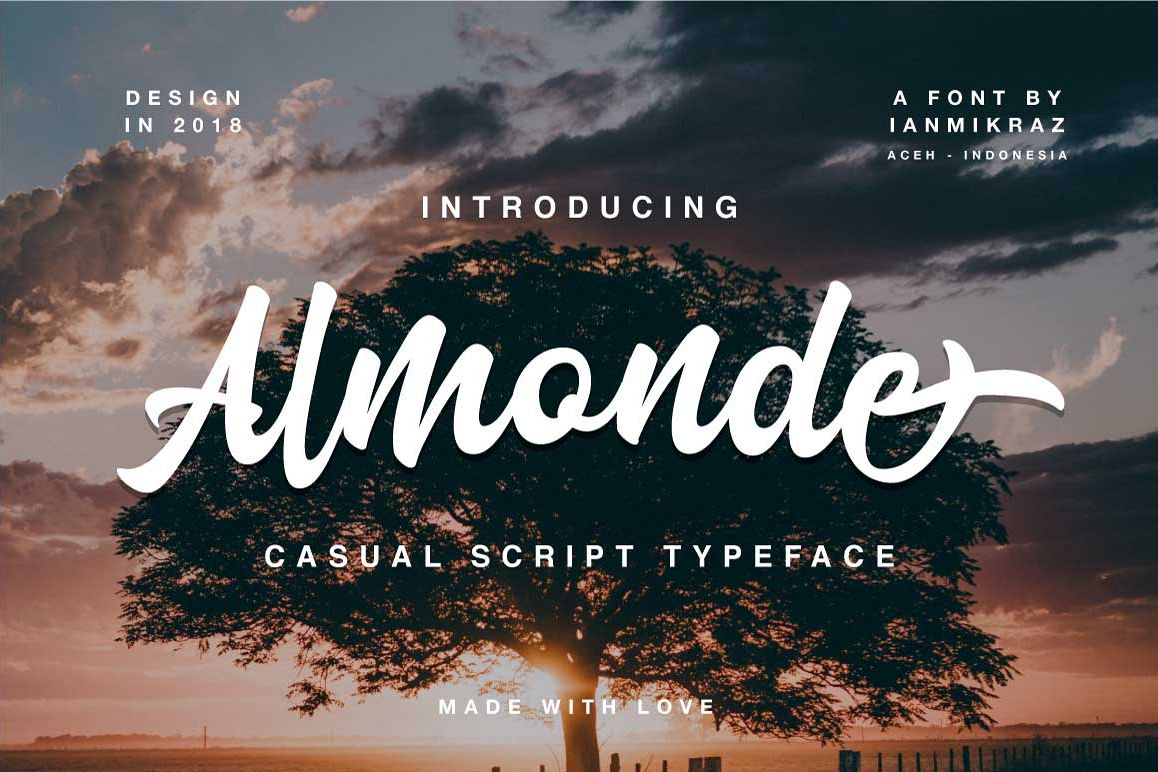
Created By IanMikraz
Almonde Script
Introducing Almonde Script
Almonde Script is a new Casual Script Typeface Fonts collection from Ianmikraz studio, combines from copperplate to contemporary typeface, classic, beauty and Natural touch.
Almonde Script features 297 glyphs and 118 alternate character contain with opentype features. Stylistic Alternates, Swash and more.You can access all those alternate characters by using OpenType savvy programs such as Adobe Illustrator, Adobe InDesign and CorelDraw X6-X7.
Features of Almonde Script is;
• Swash Uppercase
• Stylistic Set 1
• Stylistic Set 2
• Stylistic Set 3